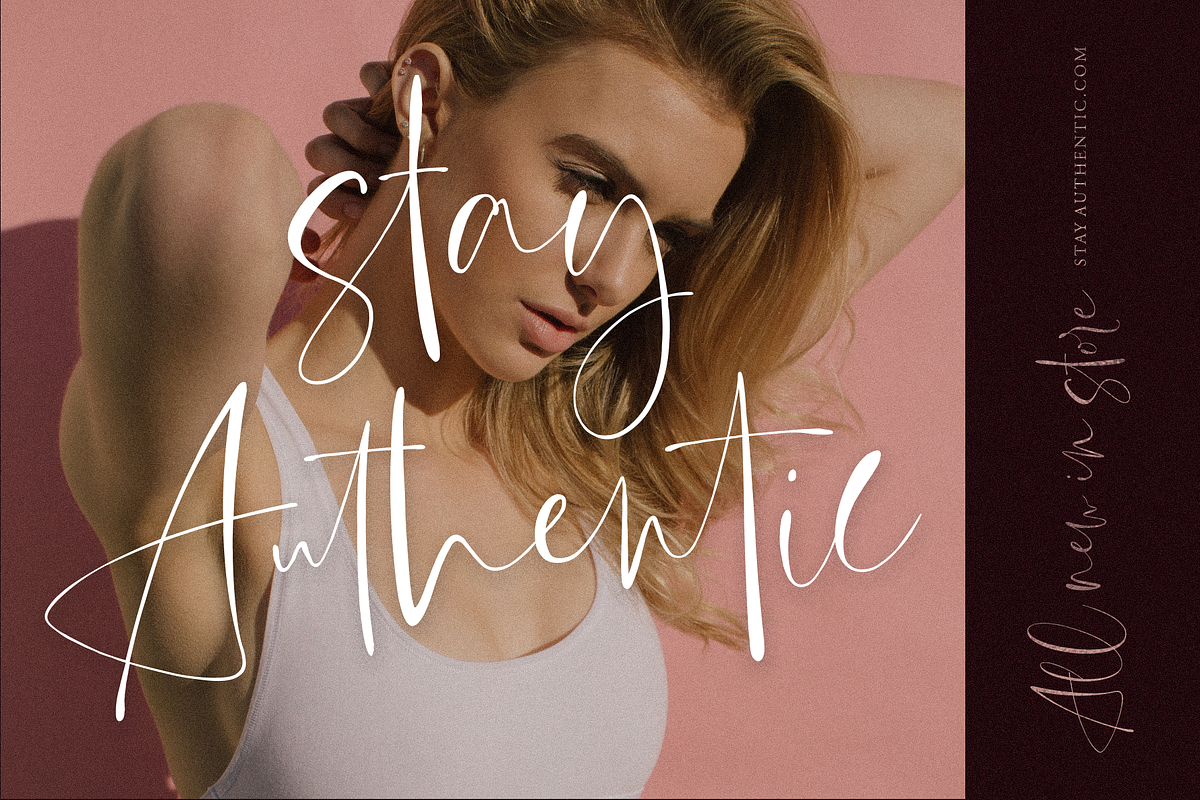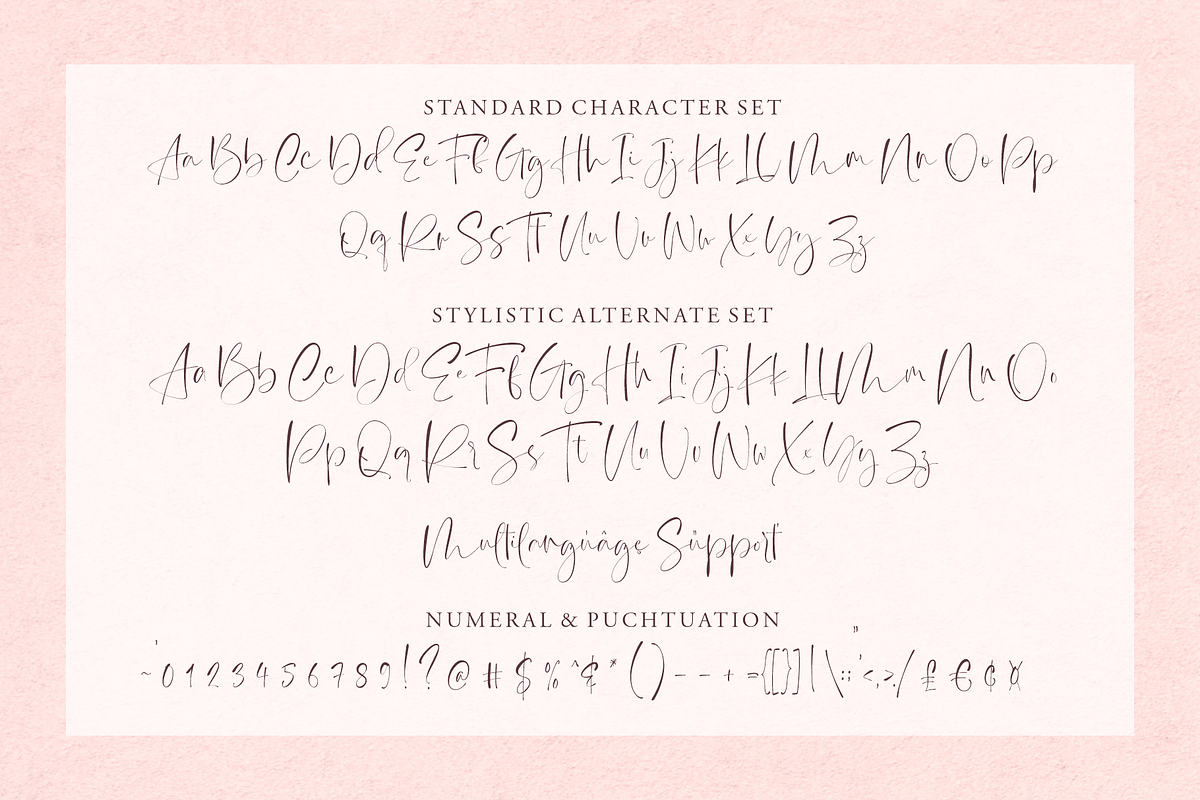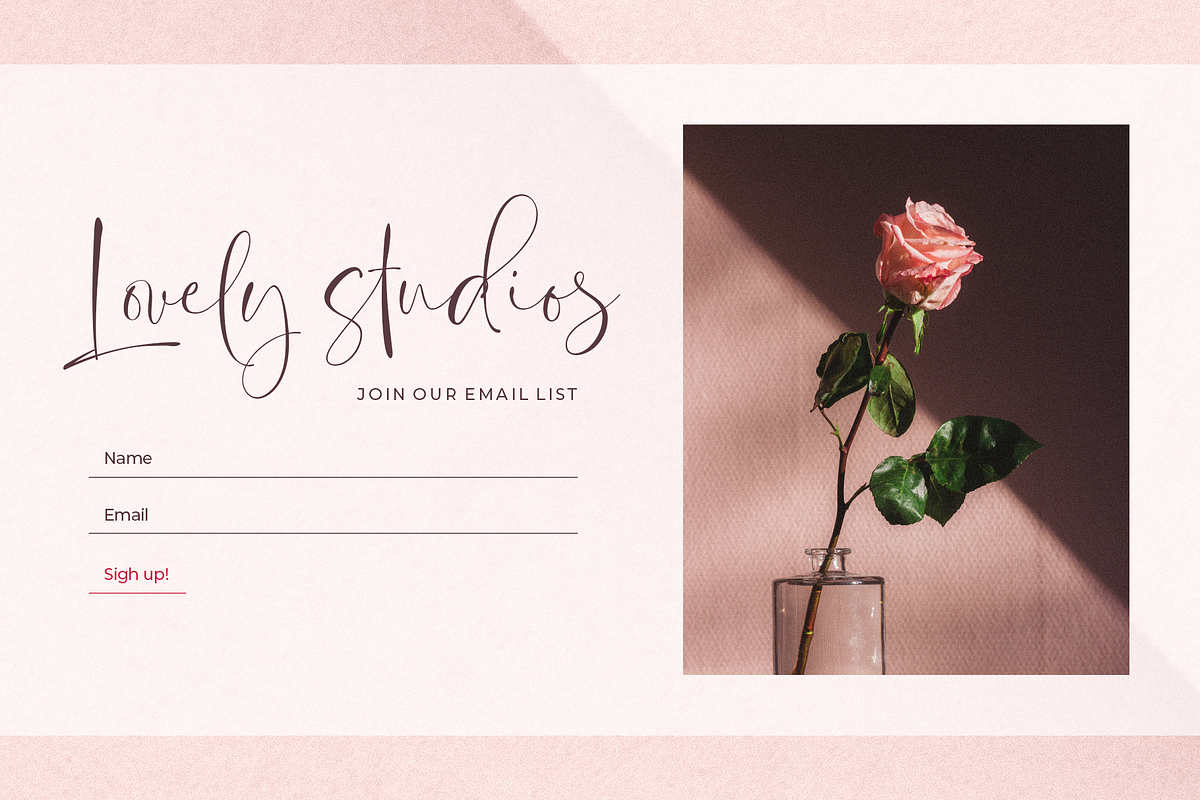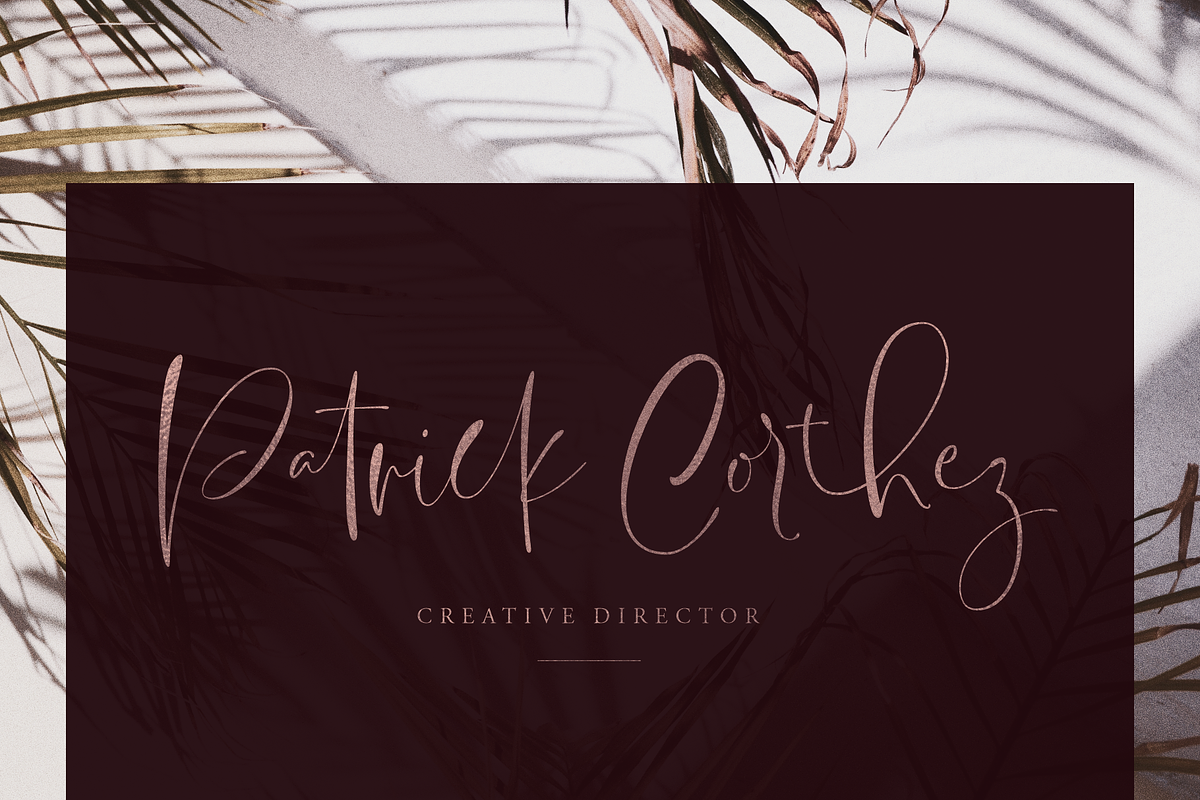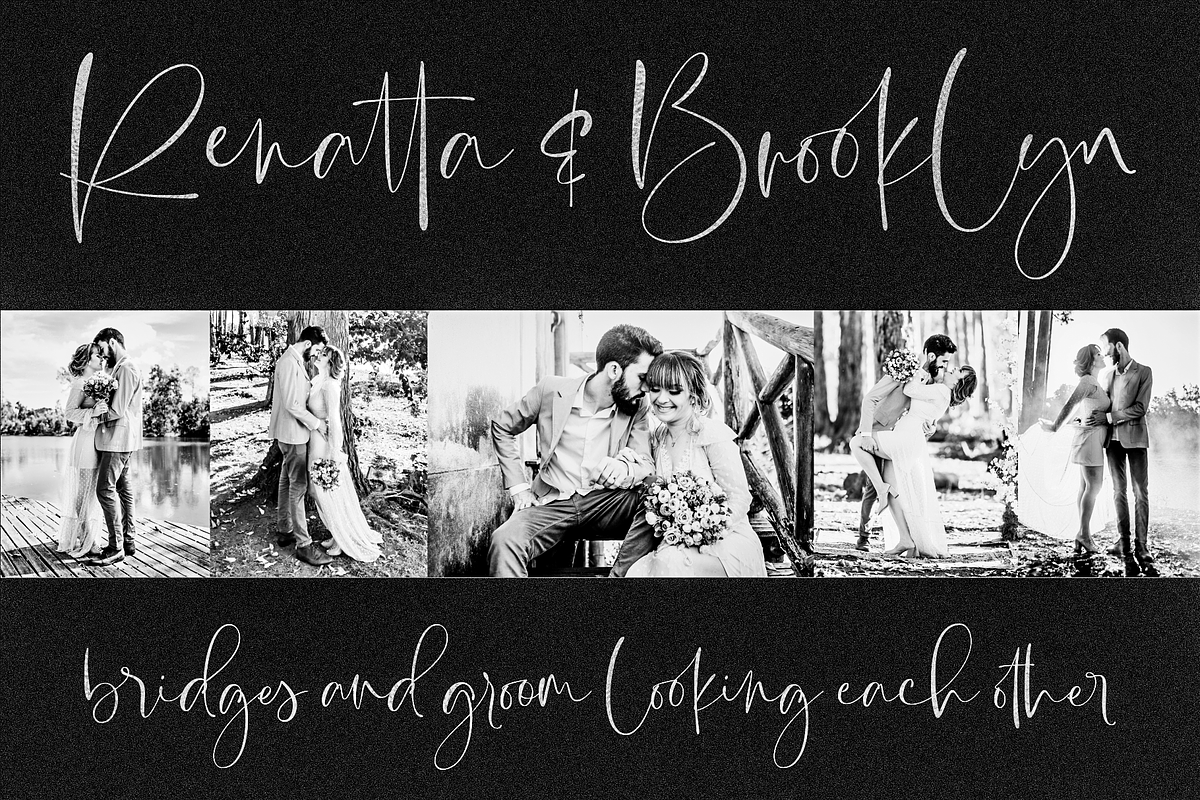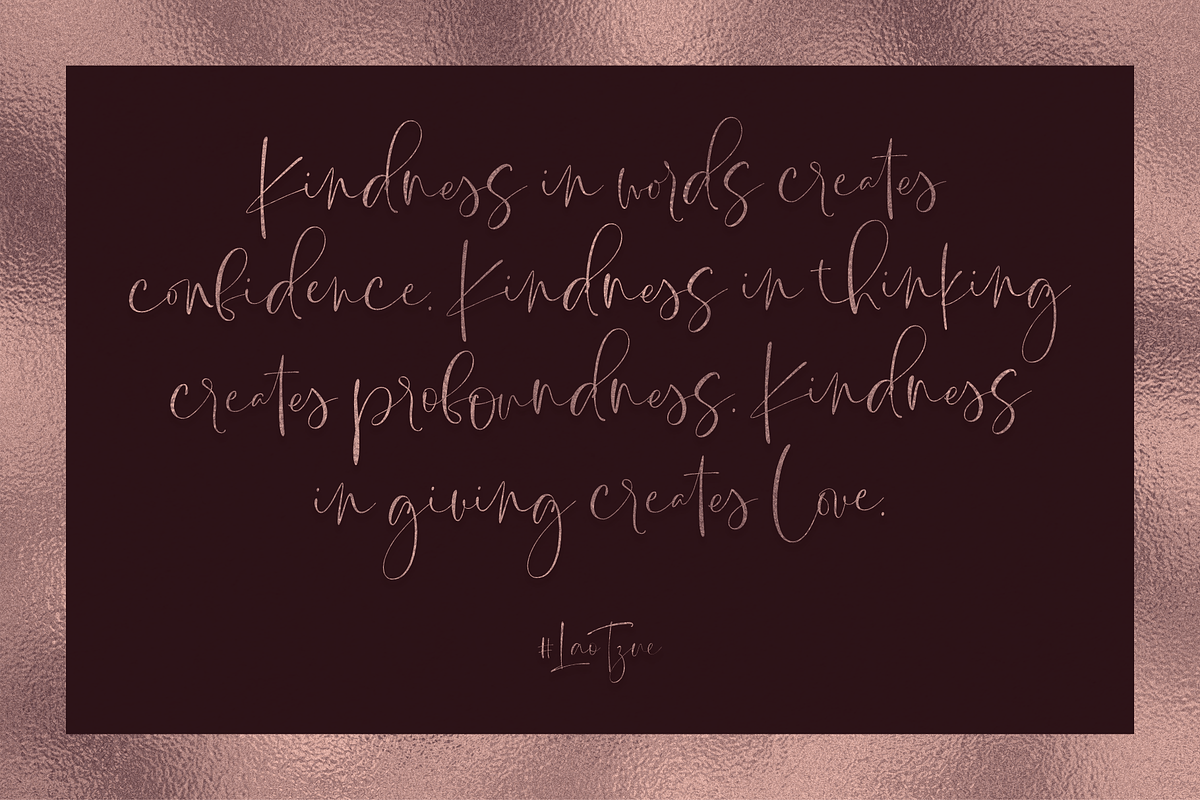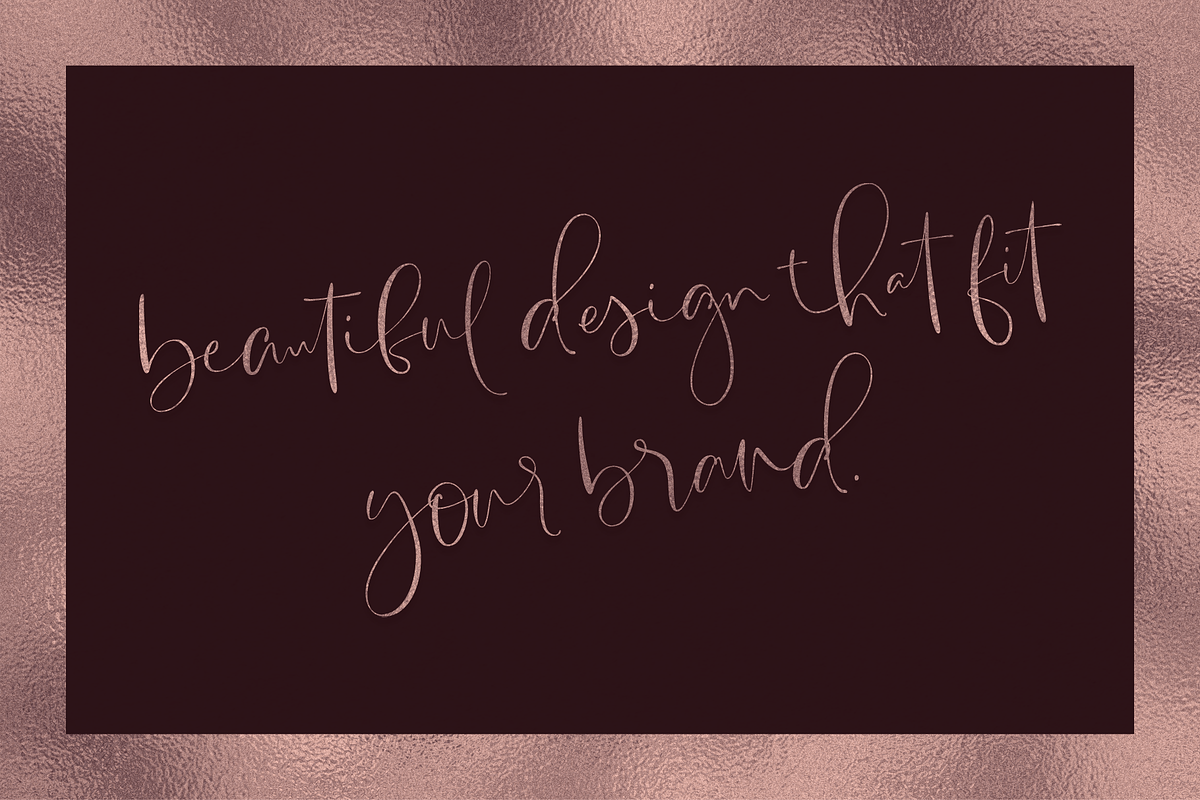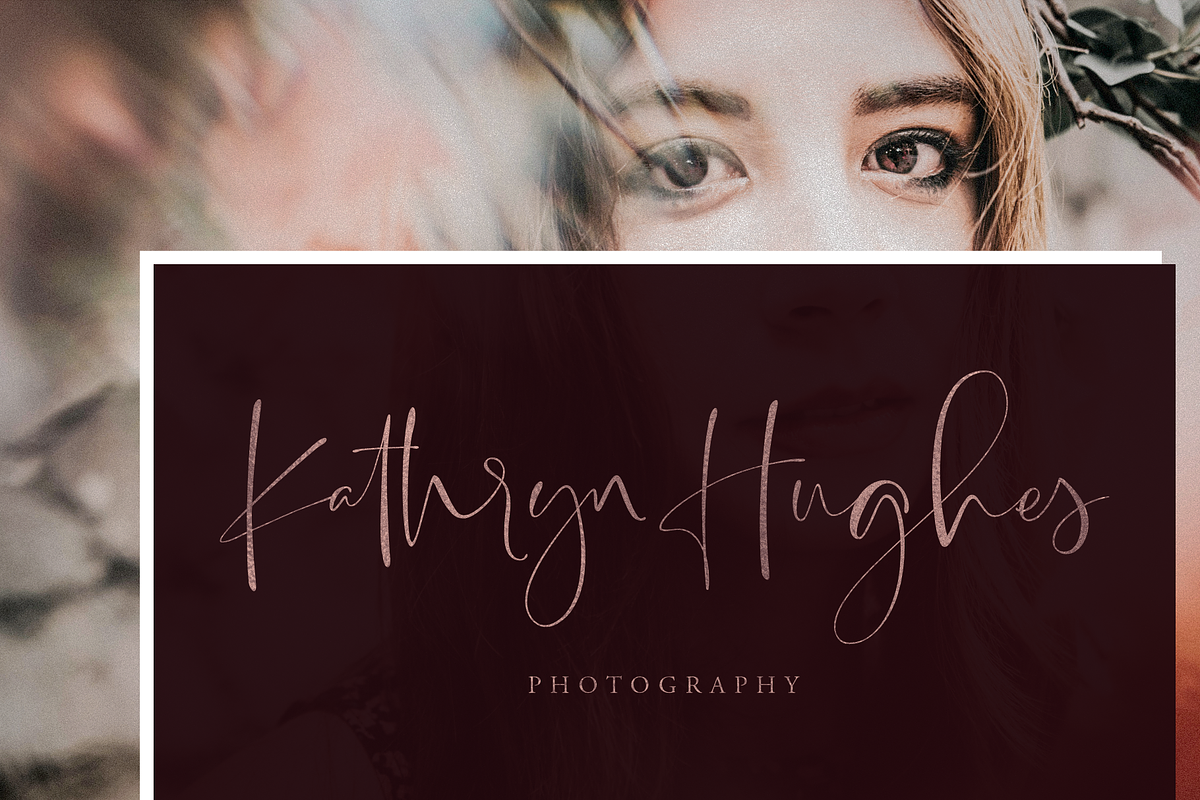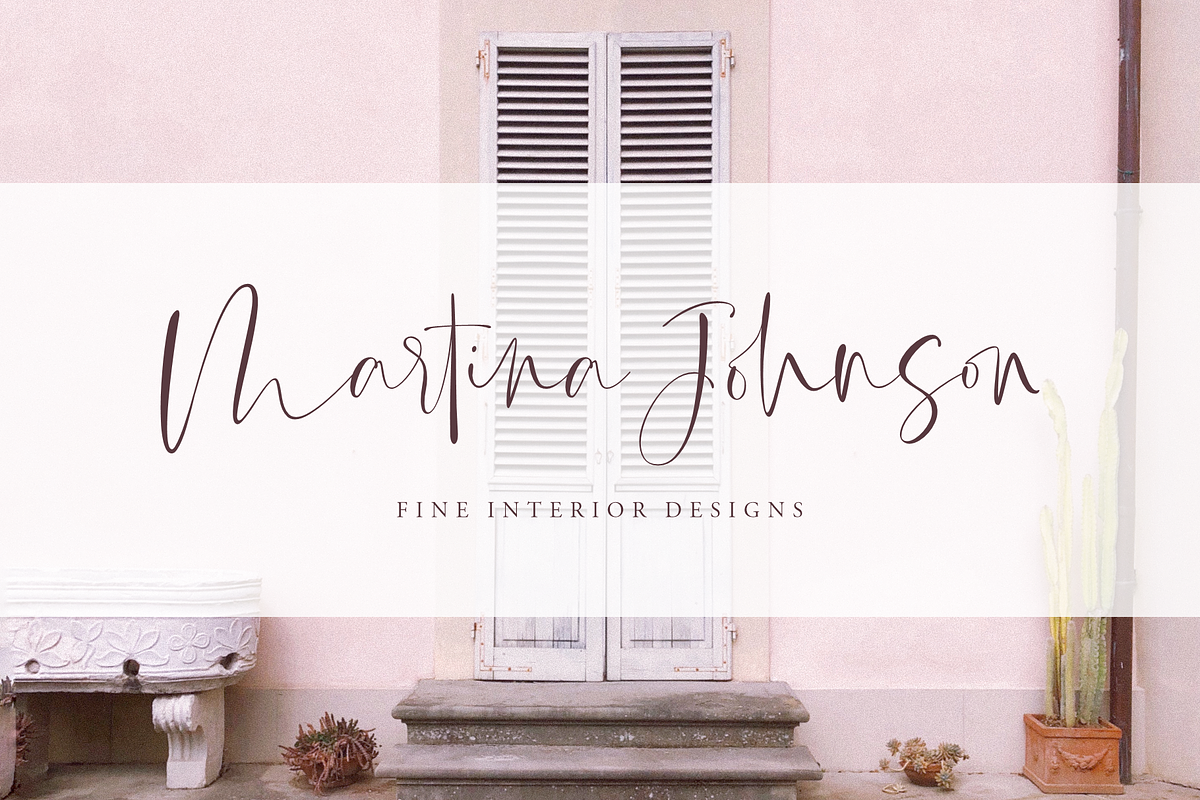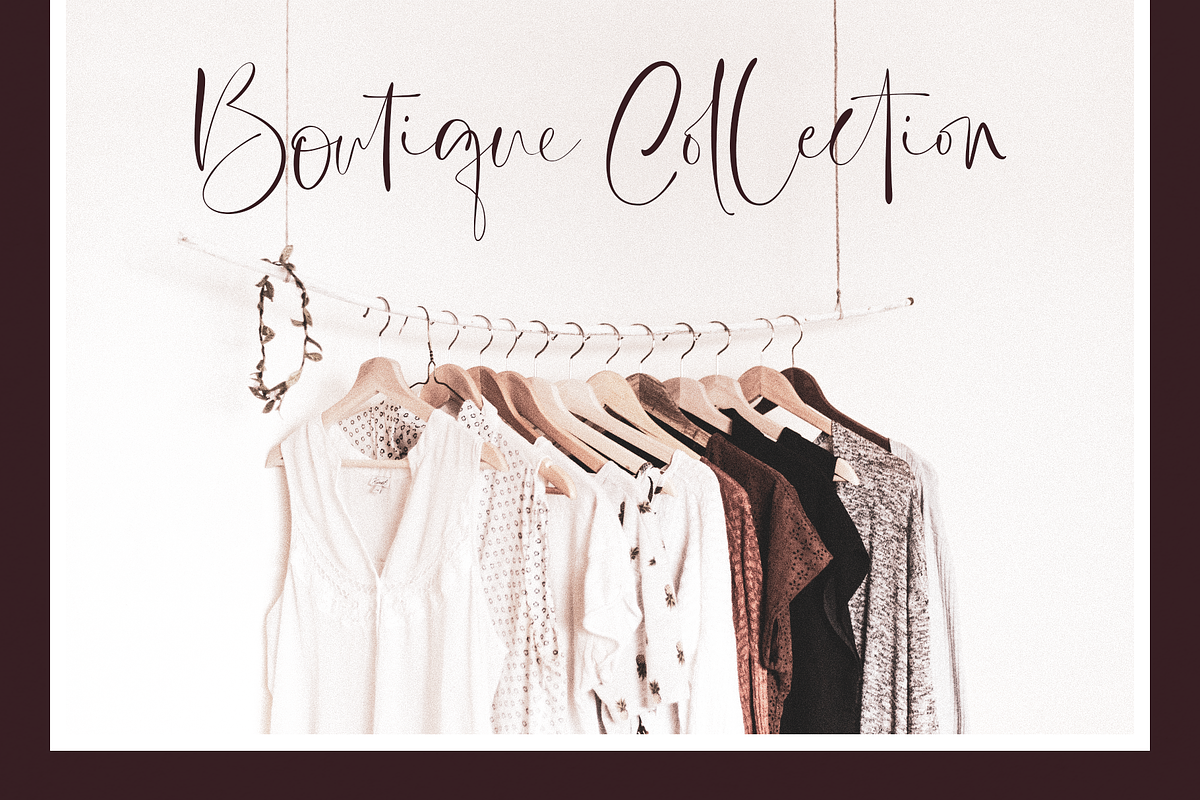
High Class – Handwritten Font
High Class is a handwritten font, with high-end style and embodies the most desirable elements of fashion, setting an impression of classiness. This font truly brings on the vibe of high society. While this font comes with over 122 hand-drawn ligatures, it has been carefully kerned to give results as if they were all handwritten. It comes with a clean base look and all over the place forms with imperfect letters, messy style ligatures, and ampersands that make it complete. Easy to use, you can create a great impact on your work. High Class font is perfect for branding projects, logos, wedding designs, social media posts, advertisements, product packaging, product designs, label, photography, watermark, invitation, stationery, and any projects that need handwriting taste.
High Class features:
- A full set of upper & lowercase characters
- A full set of alternate upper & lowercase characters
- 122 Gorgeous ligatures
- Multilingual symbols